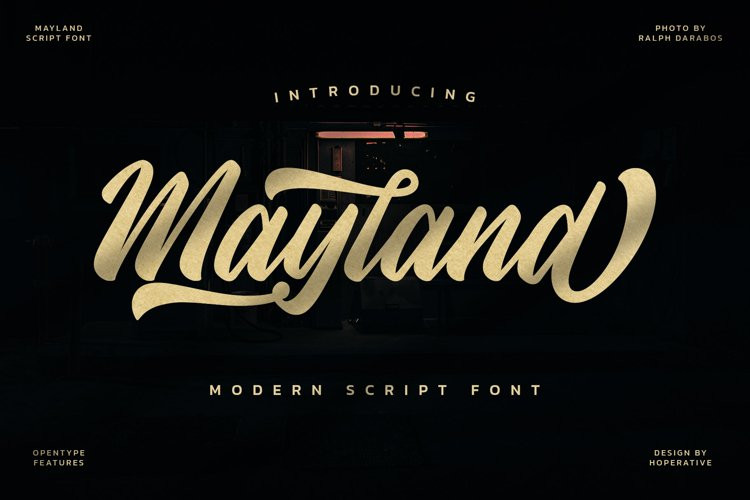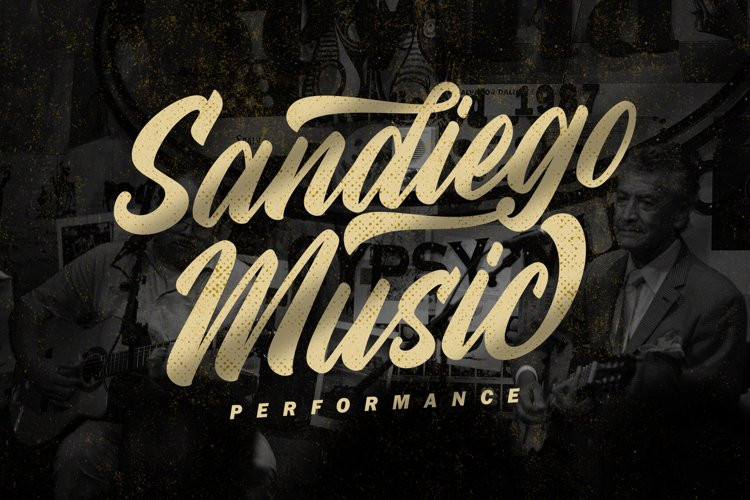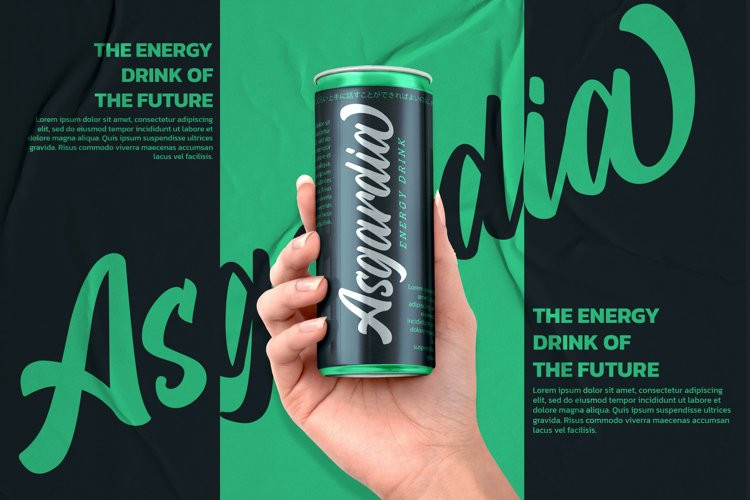
Mayland Font
Mayland FontMayland is a well-balanced and refined script font. It has a classy, elegant and modern look that can be used for logos, branding, invitations, stationery, wedding designs, social media posts, and much more!